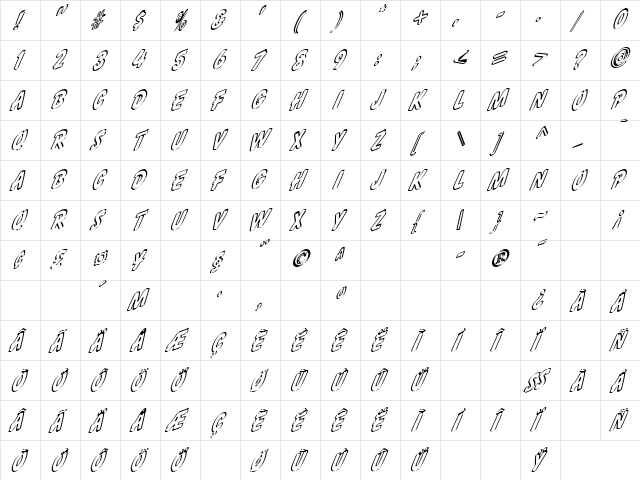
Fly Right I Regular
Design Context for Fly Right I Typeface
Fly Right I is a composed and adaptable typeface that performs quietly and consistently across a wide range of design contexts.